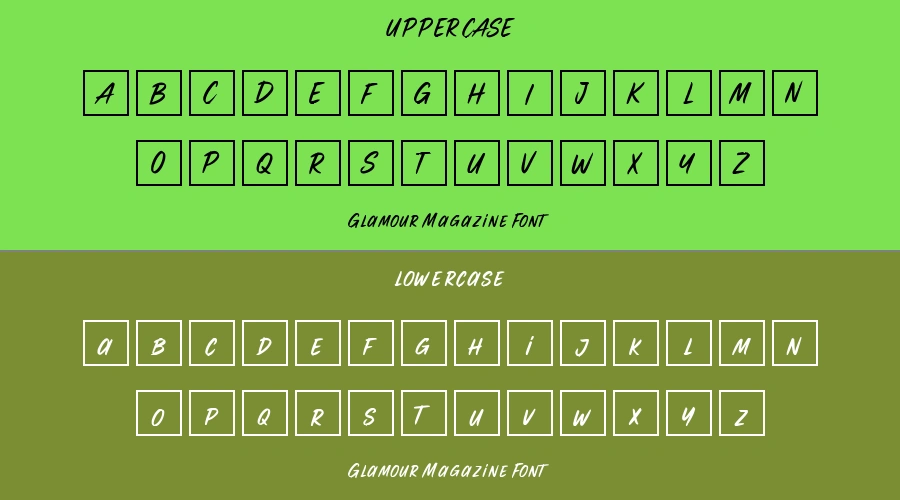
About Glamour Magazine Font
Glamour Magazine Font embodies typographic excellence through its masterful combination of balanced tension and functionality. Created for newspaper text, this typeface delivers exceptional clarity and brand power across all applications. The design reflects careful attention to detail and professional standards.
Advanced capabilities include distinctive harmonious shapes and versatile decorative sets, giving designers creative control. When used in hero imagery, Glamour Magazine Font exhibits remarkable body text reading. The harmonious balance between tail length and character sets this typeface apart.